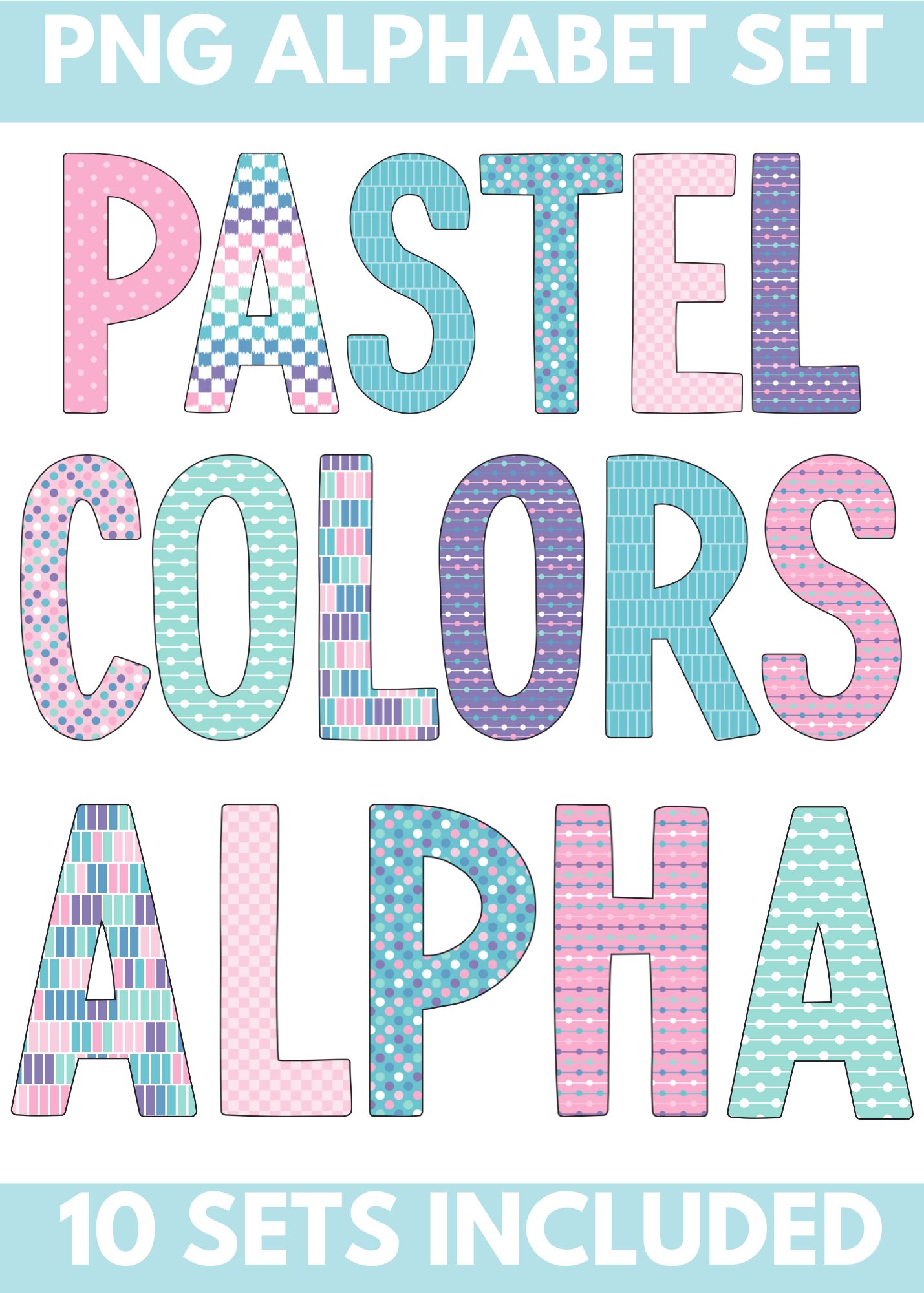
Pastel Colors PNG Alpha Font – 10 Complete Sets – DIGITAL DOWNLOAD
10-Set PNG Alpha Bundle – Patterned Designs
Take your designs to the next level with our PNG Alpha Bundle, featuring a variety of unique patterns! This versatile collection is perfect for T-shirt makers, crafters, and small business owners looking for creative, ready-to-use alphabets.
• 10 Unique Patterns to match any project or style.